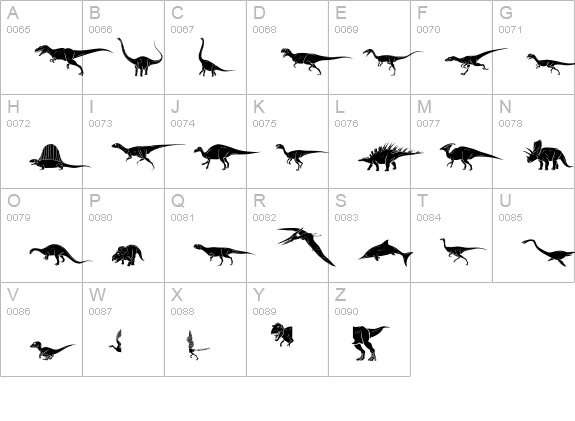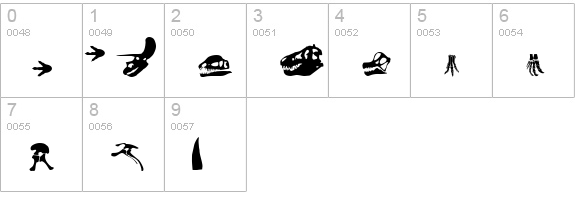
Dinosaur Solid font is a bold and powerful typeface that exudes strength and a prehistoric charm. Its unique design features sharp edges and rugged contours, reminiscent of the mighty creatures that once roamed the earth. This font is perfect for projects that require a touch of ancient mystery or a bold statement. What makes Dinosaur Solid font even more appealing is that it is available for free download at FontsMarket.com. This means you can easily access this striking typeface and use it in your design projects without any cost. Don't miss out on the opportunity to add this captivating font to your collection and bring a touch of dinosaur-inspired flair to your designs.